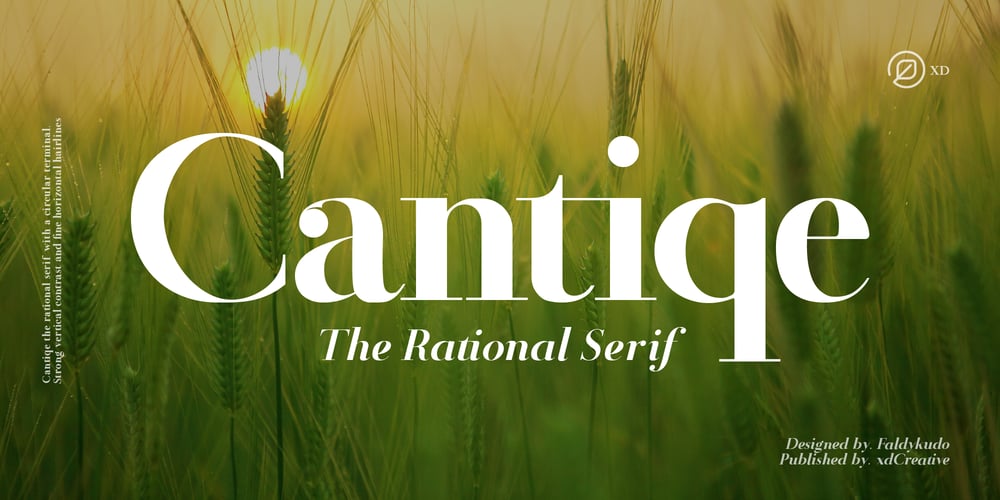
Cantiqe Font Family was designed by Faldy Kudo and published by XdCreative. Cantiqe contains 2 styles and family package options. Cantiqe the rational serif with a circular/ball terminal and strong vertical contrast and fine horizontal hairlines, This makes Cantique a blend of elegant and beautiful.Cantiqe Incredibly versatile is perfect for fashion branding or editorial designs. this font fits a wide pool of designs, elevating them to the highest levels. Add this font to your favourite creative ideas and notice how it makes them come alive!Thank You_xdCreative